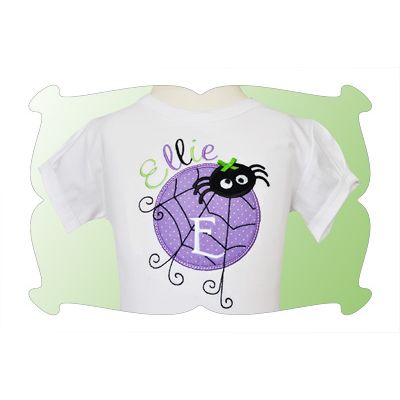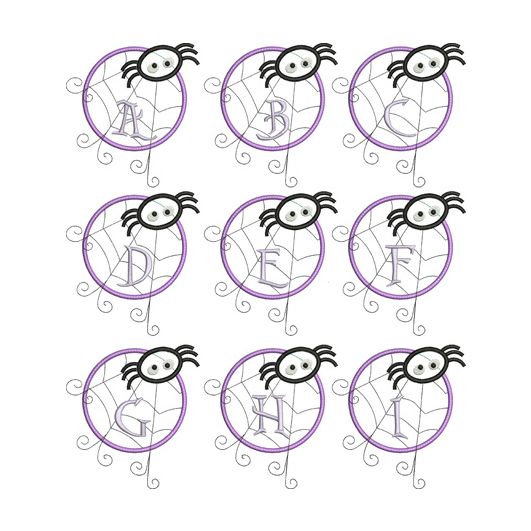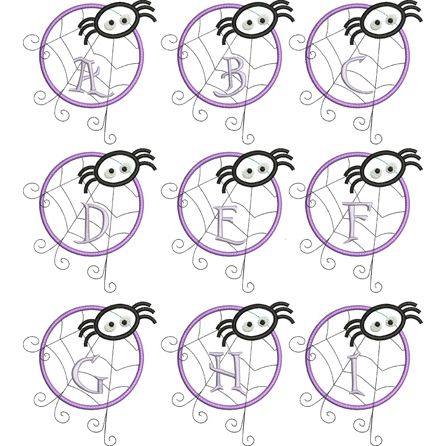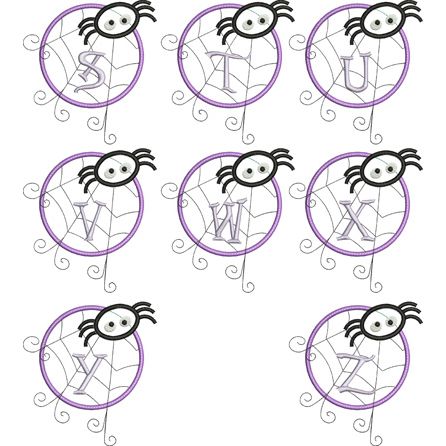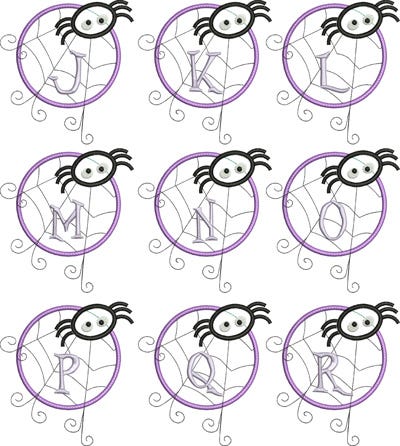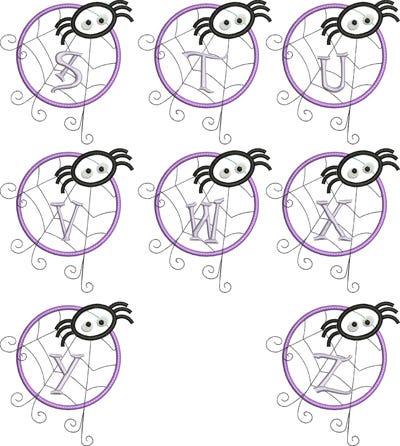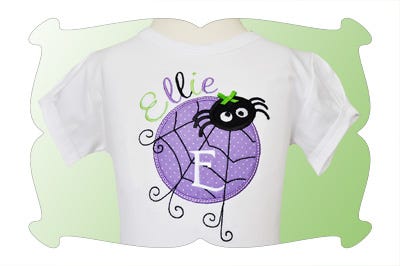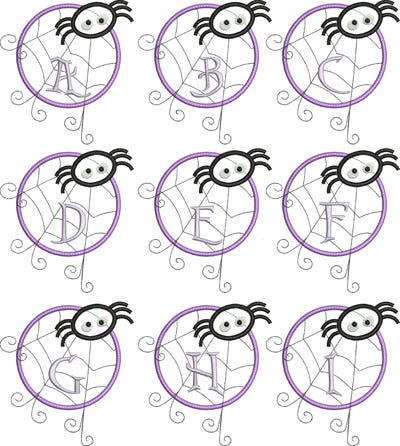
Sweet Spider Satin Stitch Applique Monogram Embroidery Font
Sweet Spider Monogram Font
Looking for a not so scary Halloween design?
Capital letters A thru Z.